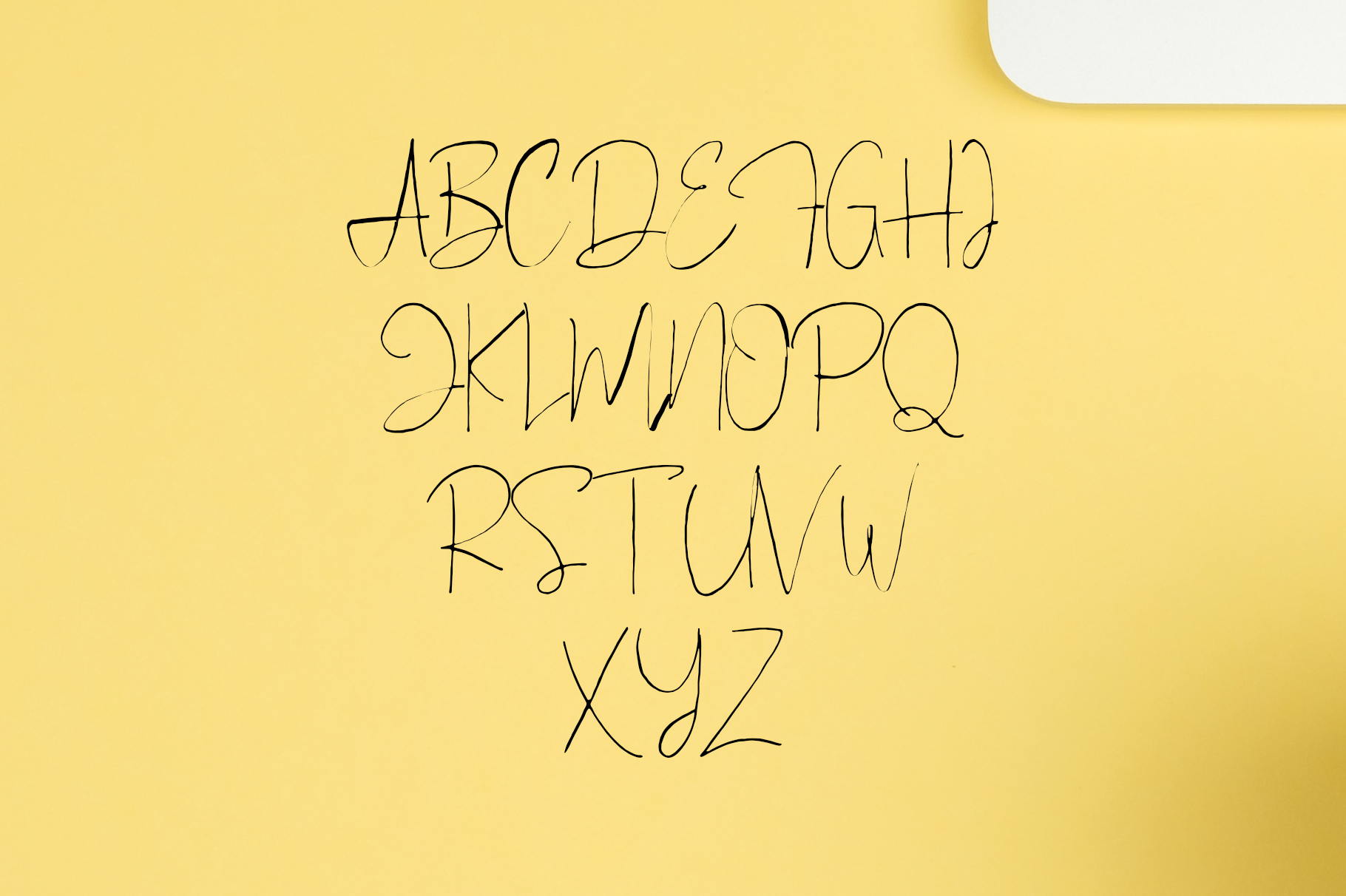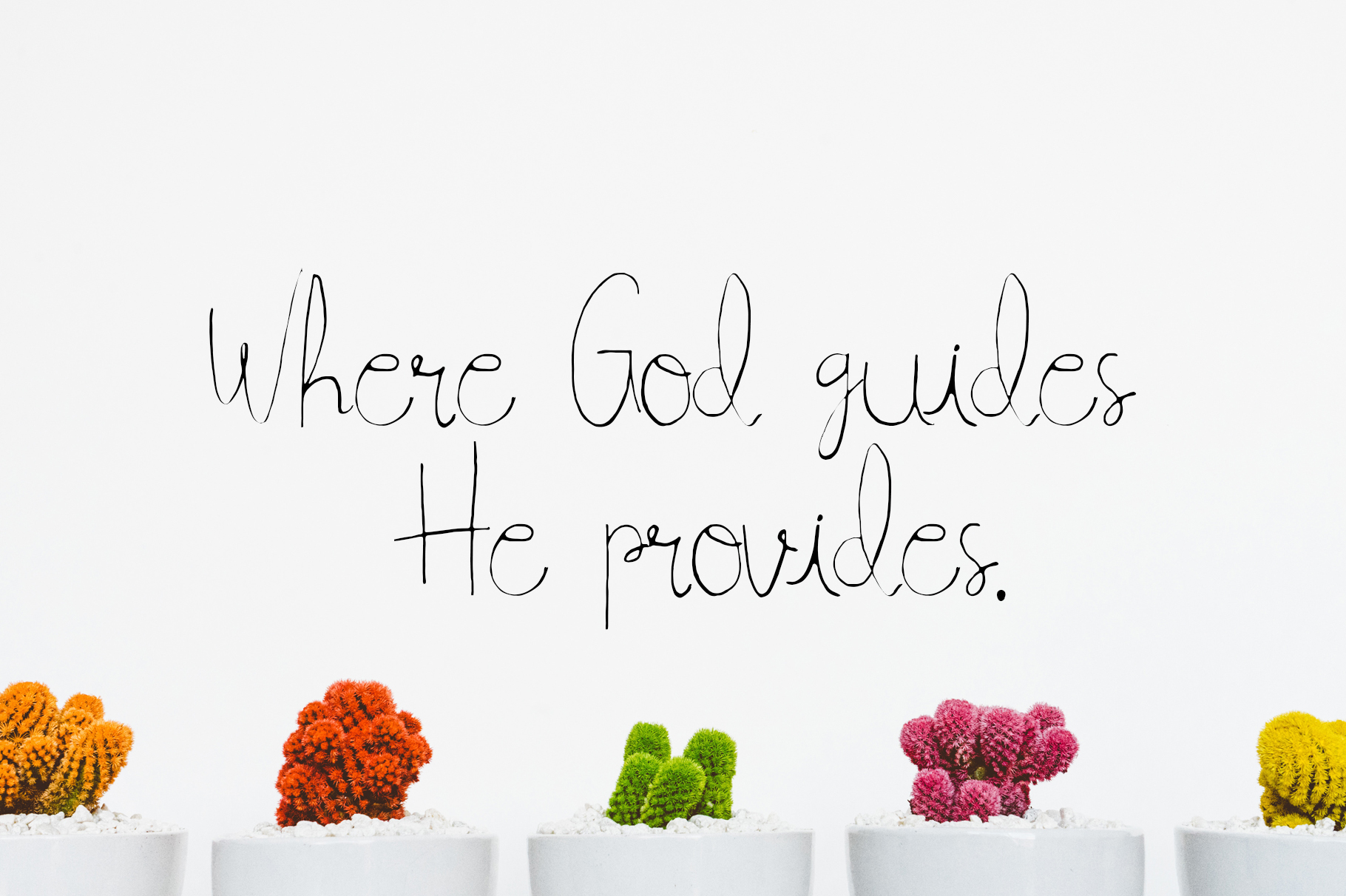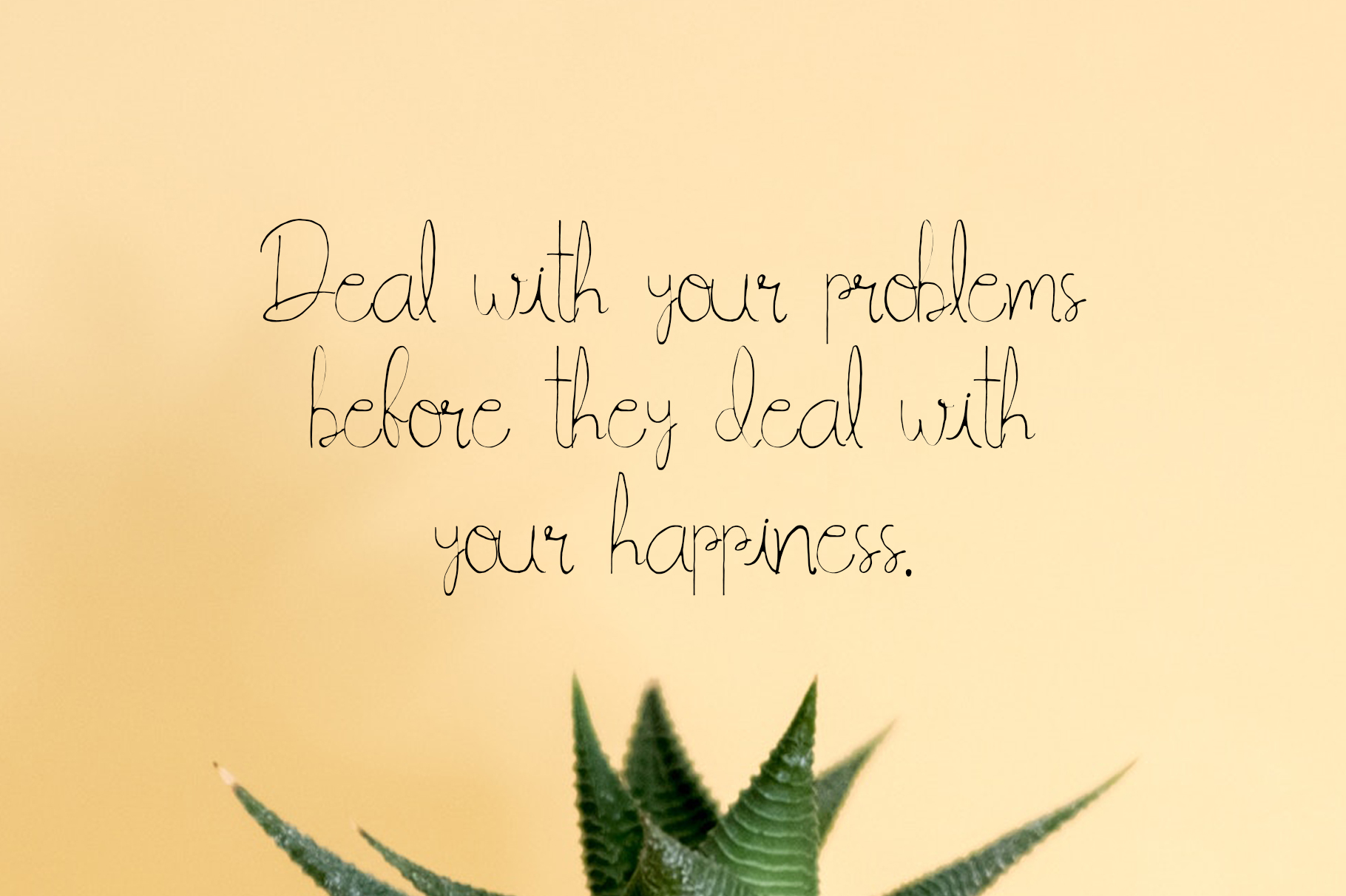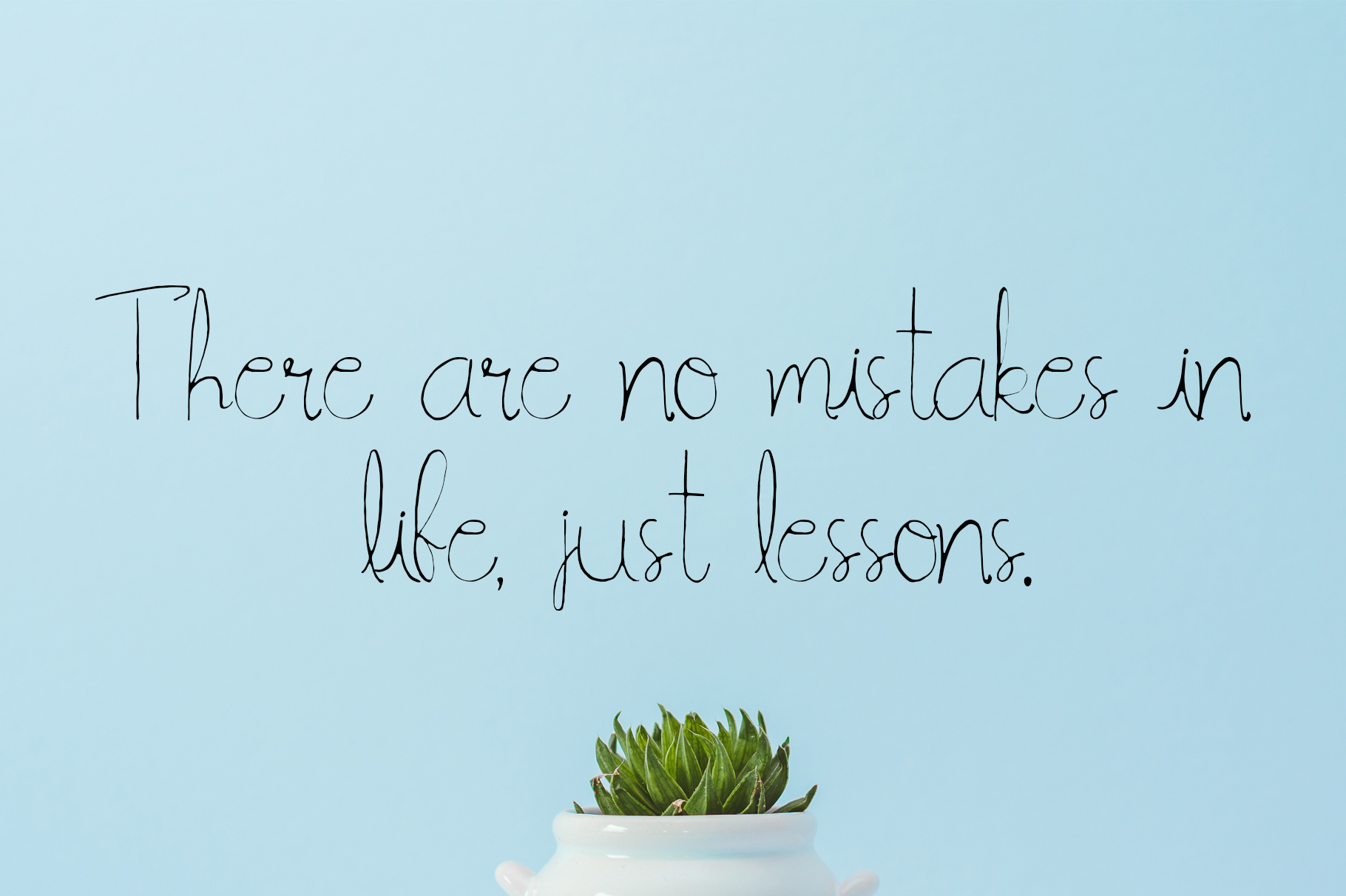
Bellinor Font: The Delicate and Adorable Hand-Drawn Signature Font
Are you looking for a font that can add a touch of elegance and friendliness to your designs? Look no further than Bellinor Font, a hand-drawn signature font that is sure to capture your audience’s attention. With its delicate and adorable touch, Bellinor is perfect for a wide range of designs, from branding and packaging to wedding invitations and social media graphics.
What is Bellinor Font?
Bellinor Font is a carefully crafted, hand-drawn signature font that boasts a unique and charming aesthetic. Its delicate lines and curves give it a warm and inviting feel, making it perfect for designs that require a personal touch. Whether you’re a designer, craftsperson, or DIY enthusiast, Bellinor Font is an excellent choice for adding a touch of sophistication and whimsy to your projects.
Key Features of Bellinor Font
Bellinor Font comes with an impressive set of features that make it a versatile and practical choice for designers and crafters. Some of its key features include:
- Font Weight: Regular – Bellinor Font is available in a single, regular weight that is perfect for body text and headings.
- 149 Glyphs – Bellinor Font includes a complete set of uppercase and lowercase letters, numerals, punctuation, and ligatures, giving you a wide range of creative possibilities.
- Uppercase Multilingual Letters – Bellinor Font includes a set of uppercase letters that support multiple languages, making it perfect for international designs.
- Lowercase Multilingual Letters – Bellinor Font also includes a set of lowercase letters that support multiple languages, ensuring that your designs are inclusive and accessible.
- Numbers & Punctuation – Bellinor Font includes a range of numerals and punctuation marks, making it easy to create professional-looking designs.
- Alternative Characters – Bellinor Font includes alternative characters, giving you even more creative flexibility and options.
Who is Bellinor Font for?
Bellinor Font is perfect for designers, craftspersons, and DIY enthusiasts who want to add a touch of elegance and friendliness to their designs. It’s ideal for:
- Graphic Designers – Bellinor Font is perfect for graphic designers who want to create stunning branding, packaging, and advertising materials.
- Wedding Planners and Stylists – Bellinor Font is a great choice for wedding planners and stylists who want to create beautiful and unique wedding invitations, stationery, and decor.
- Crafters and DIY Enthusiasts – Bellinor Font is perfect for crafters and DIY enthusiasts who want to add a personal touch to their projects, such as handmade cards, gift tags, and home decor.
- Social Media Influencers – Bellinor Font is a great choice for social media influencers who want to create engaging and visually appealing graphics for their feeds.
Tips for Using Bellinor Font
Here are some tips for using Bellinor Font effectively in your designs:
- Pair it with bold fonts – Bellinor Font pairs well with bold fonts, creating a beautiful contrast that adds visual interest to your designs.
- Use it for headings and titles – Bellinor Font is perfect for headings and titles, adding a touch of elegance and sophistication to your designs.
- Experiment with colors – Bellinor Font looks great in a range of colors, from soft pastels to rich jewel tones. Experiment with different colors to find the perfect fit for your design.
- Don’t be afraid to get creative – Bellinor Font is a versatile font that can be used in a range of creative ways. Don’t be afraid to experiment and try new things!
Bellinor Font is a beautiful, hand-drawn signature font that is perfect for designers, craftspersons, and DIY enthusiasts who want to add a touch of elegance and friendliness to their designs. With its delicate and adorable touch, Bellinor Font is sure to capture your audience’s attention and leave a lasting impression. Whether you’re creating branding materials, wedding invitations, or social media graphics, Bellinor Font is an excellent choice.